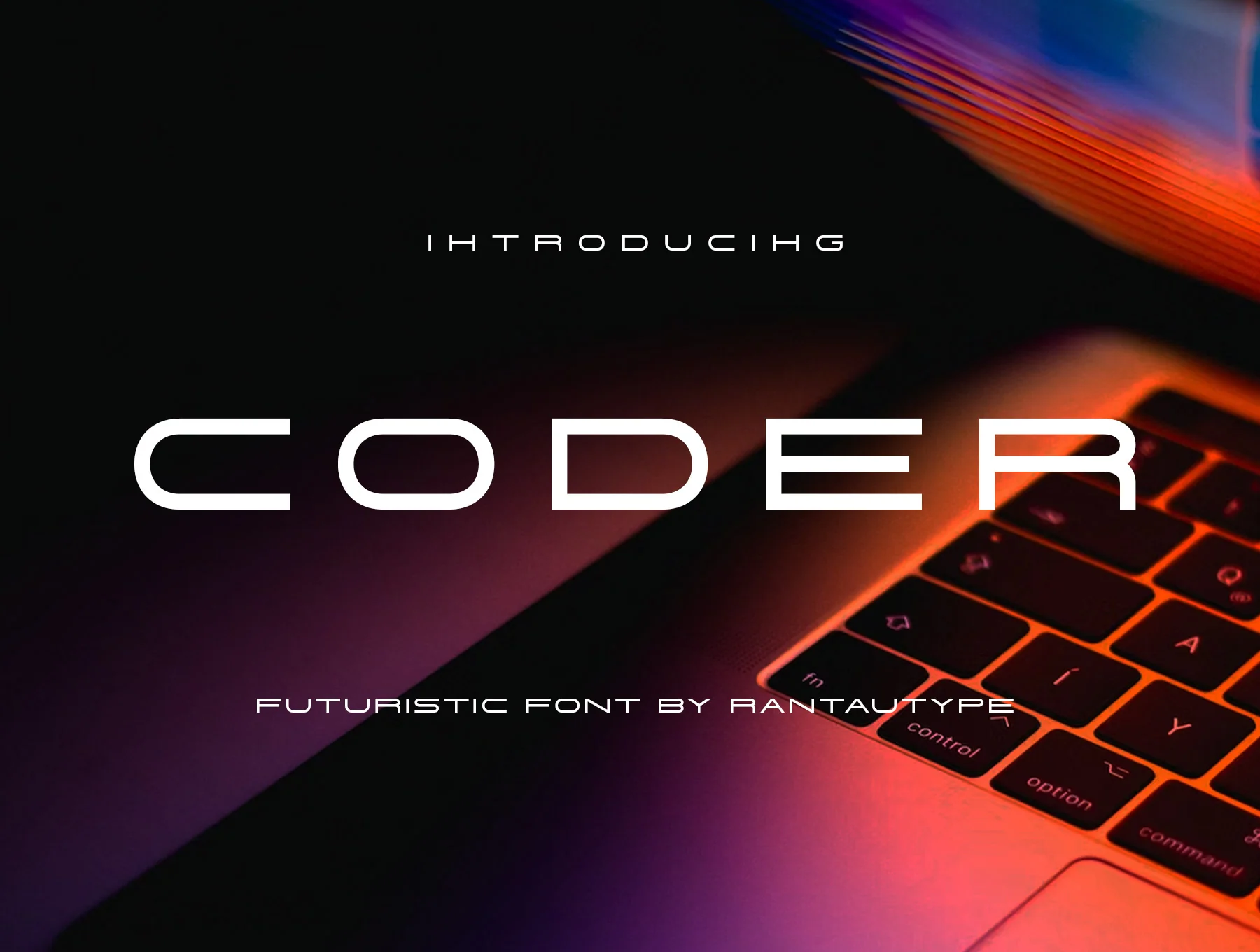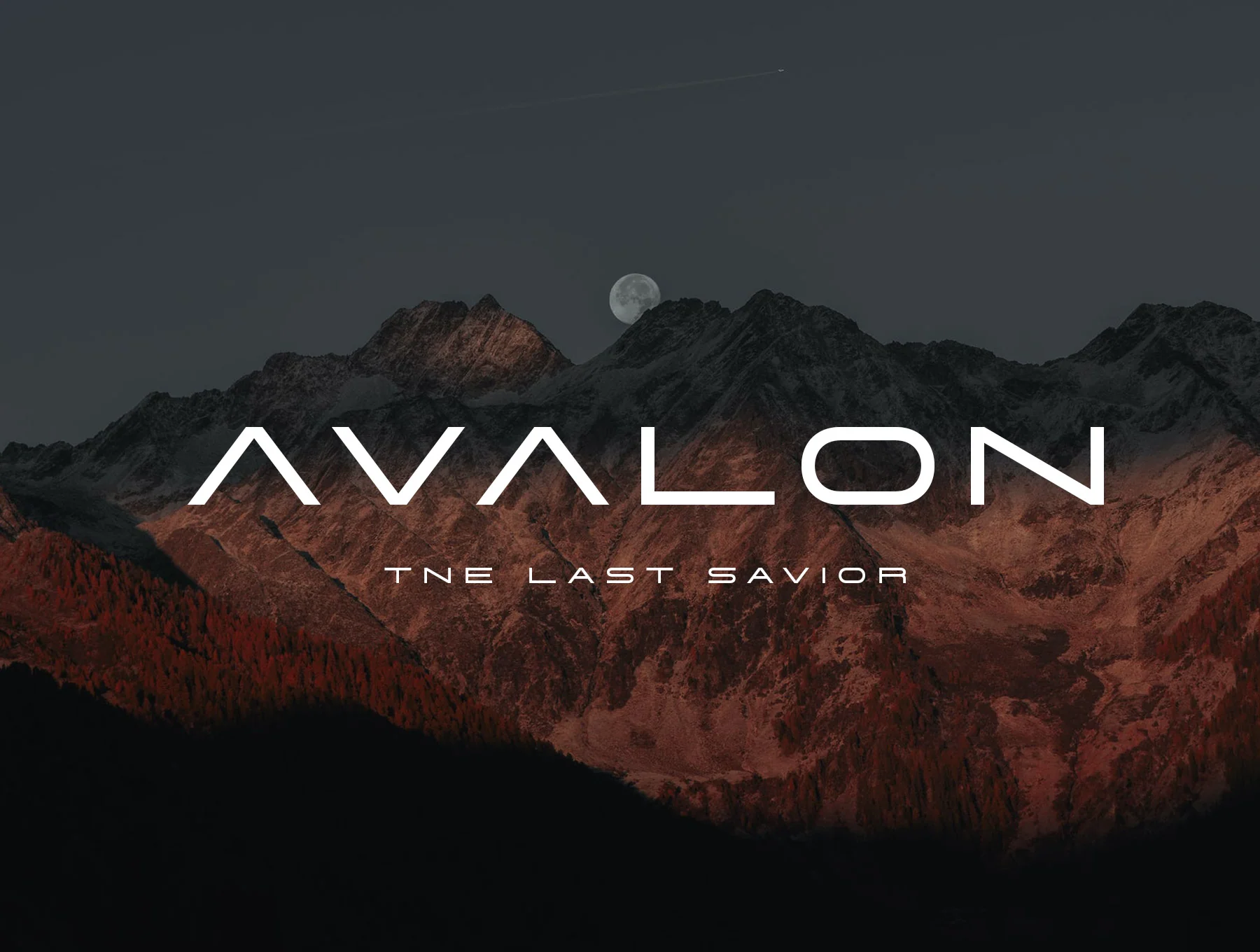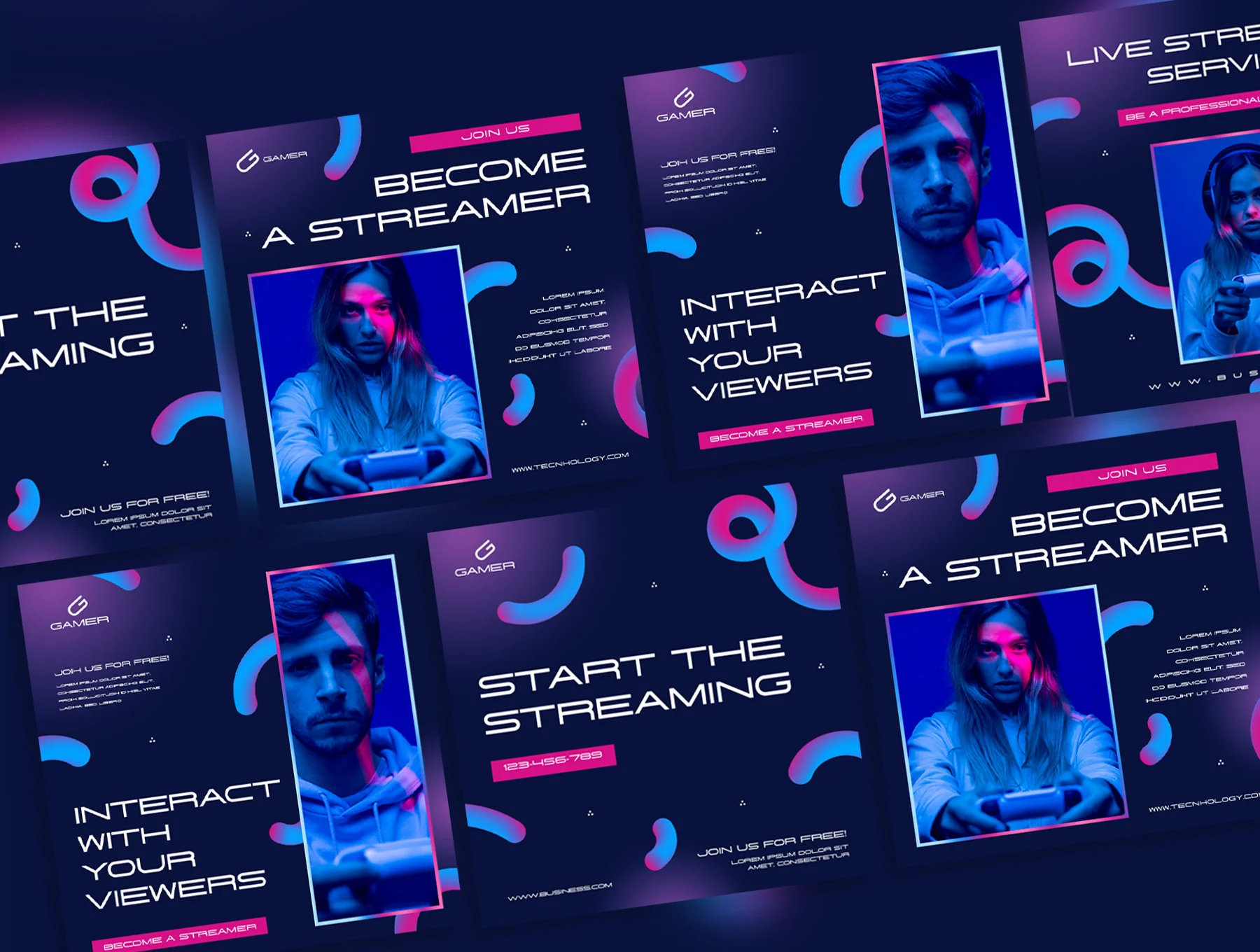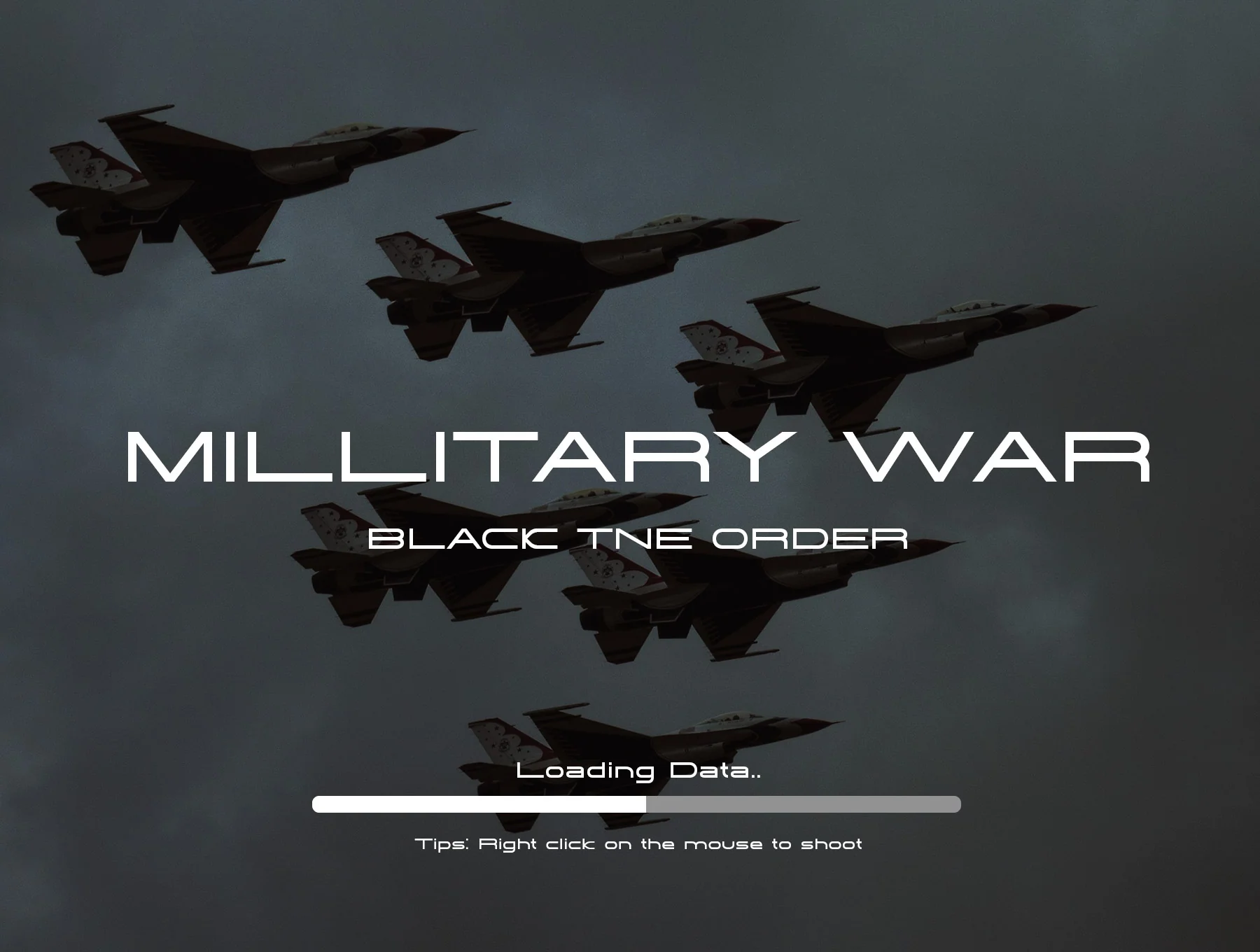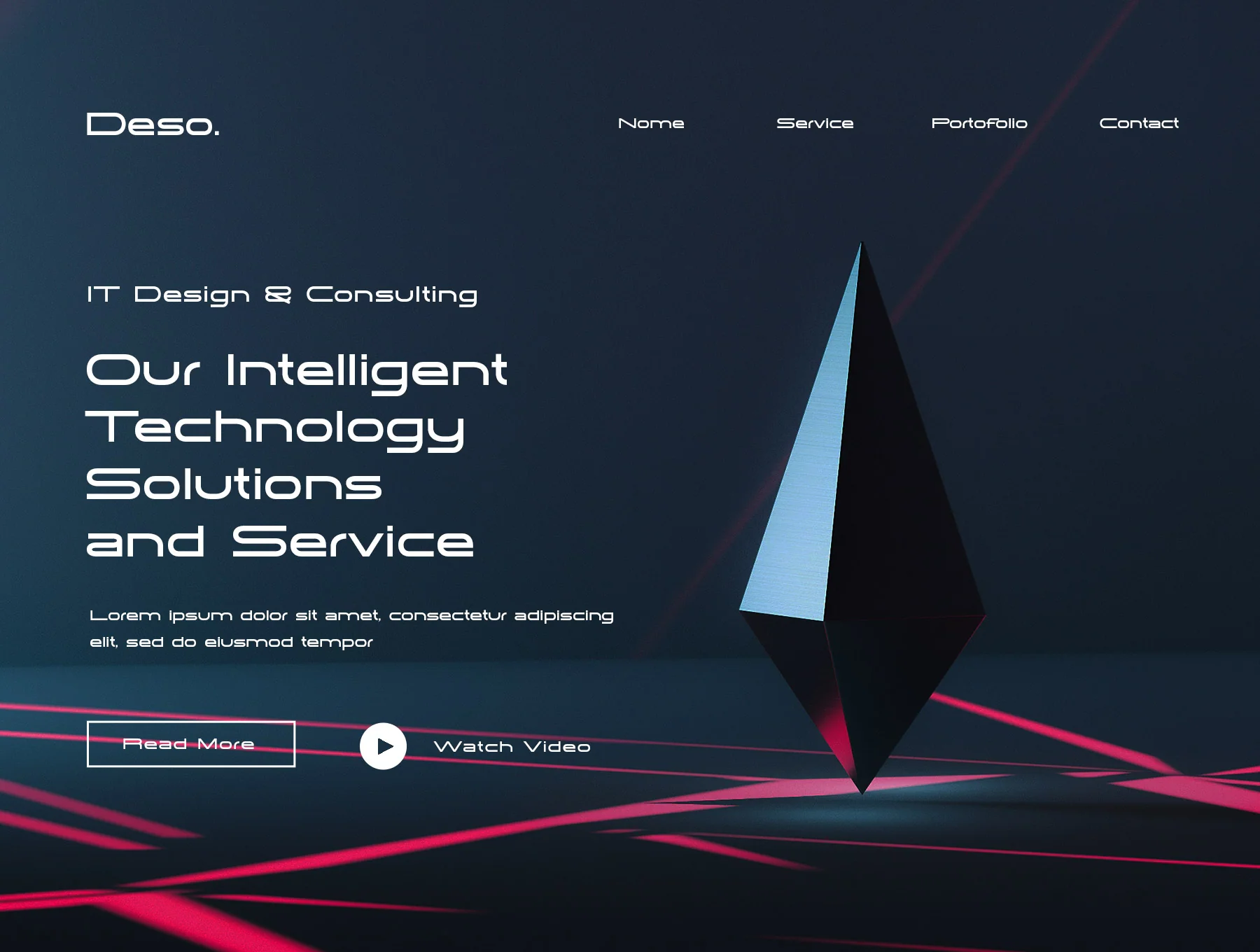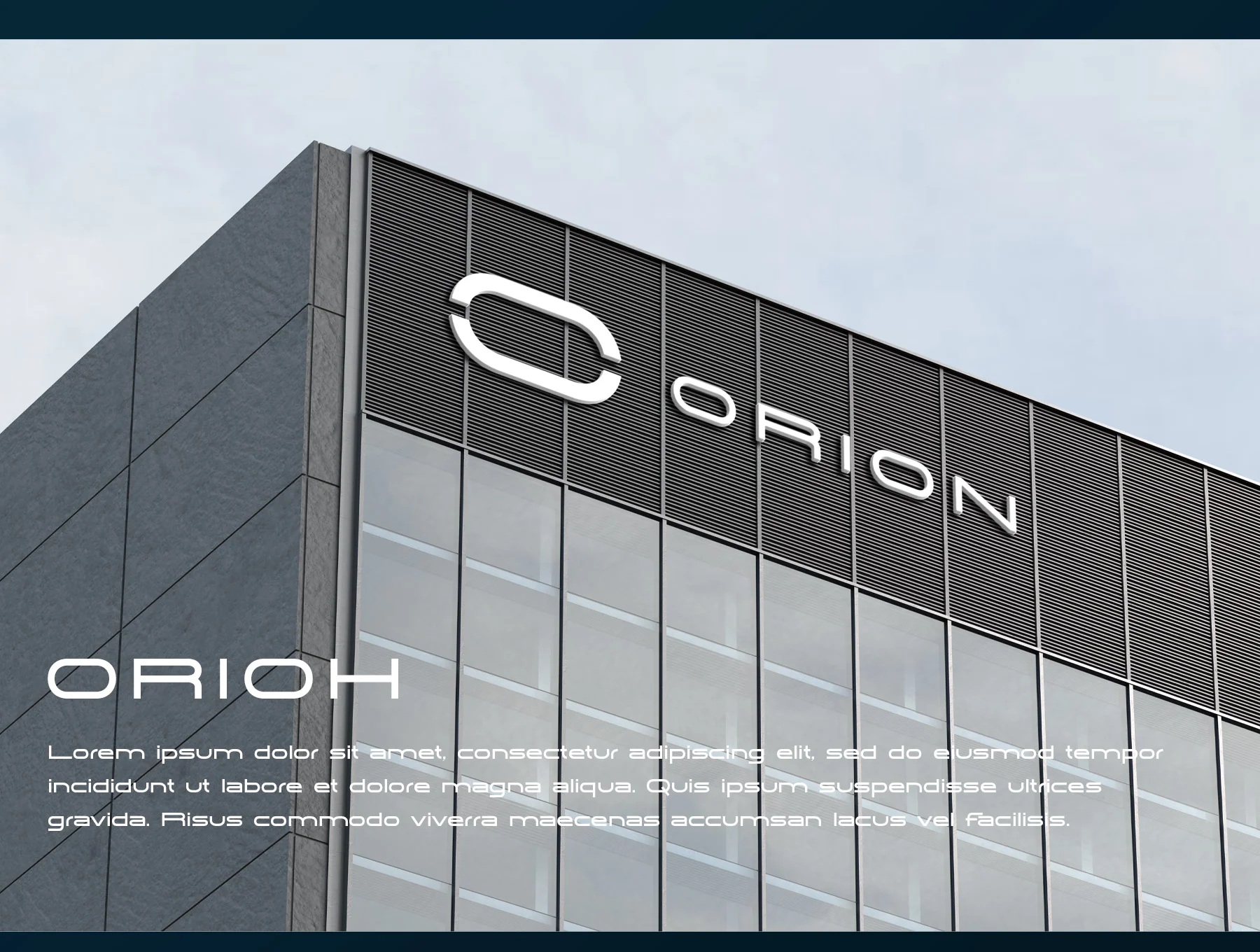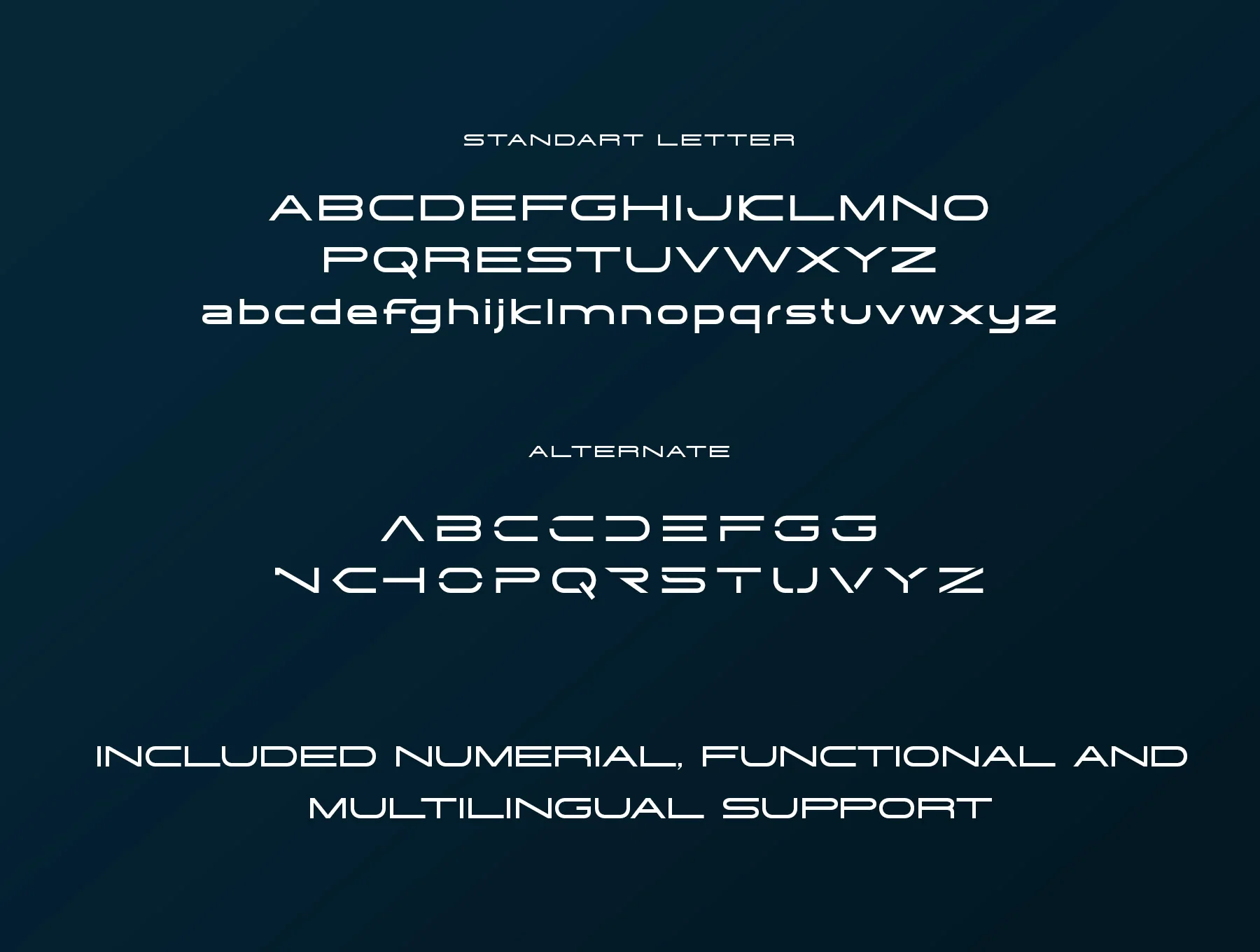
Coder Futuristic Font
Sci-Fi Typeface
Two styles: regular and italic
Basic A–Z and a–z characters
Numerals and functional symbols
Multilingual language support
Introducing Coder by rantautype, a sleek futuristic font with clean curves and a modern minimalist style. Ideal for logos, titles, covers, films, branding, displays, magazines, and lifestyle designs. Includes regular and italic styles, A-Z/a-z, numbers, symbols, uppercase alternates, OpenType features, multilingual accents, plus OTF, TTF, WOFF, and WOFF2 files.